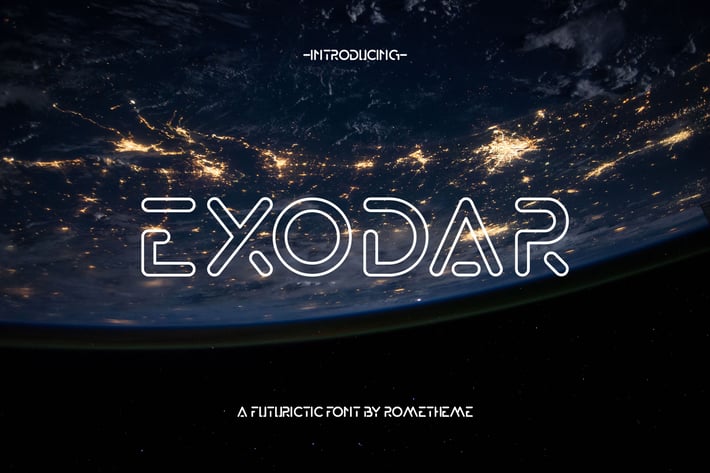
Exodar - Futuristic Display Font
Exodar is a font that inspired by futuristic and scifi style. Suitable for logo, poster design, t-shirt, headline, cd cover album or something that need modern or futuristic looks.
- Uppercase & lowercase letters, numbers, punctuation
- Multilingual support
- Exodar Outline font